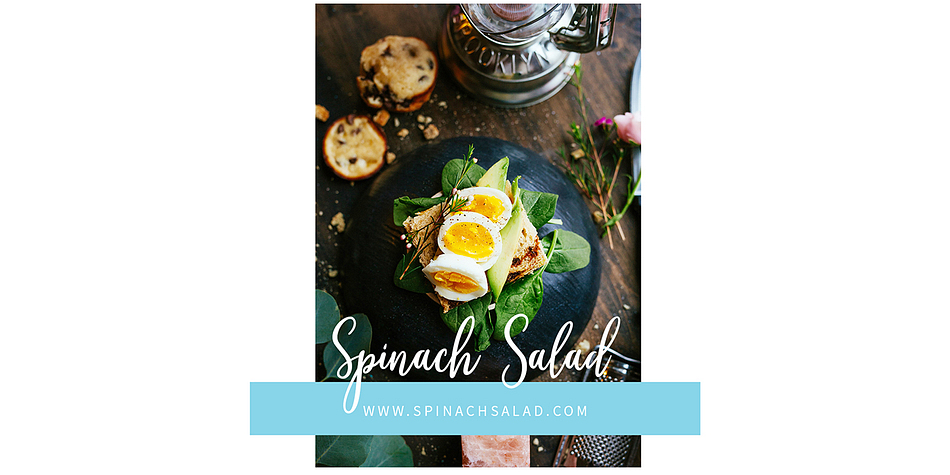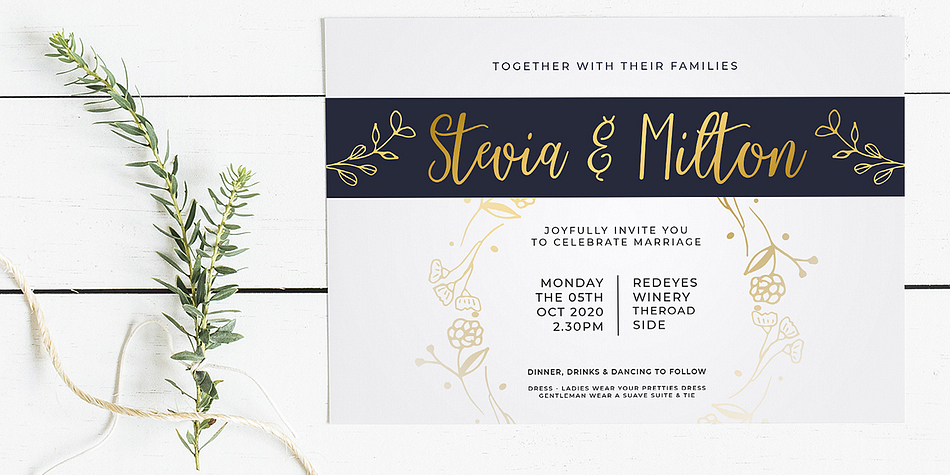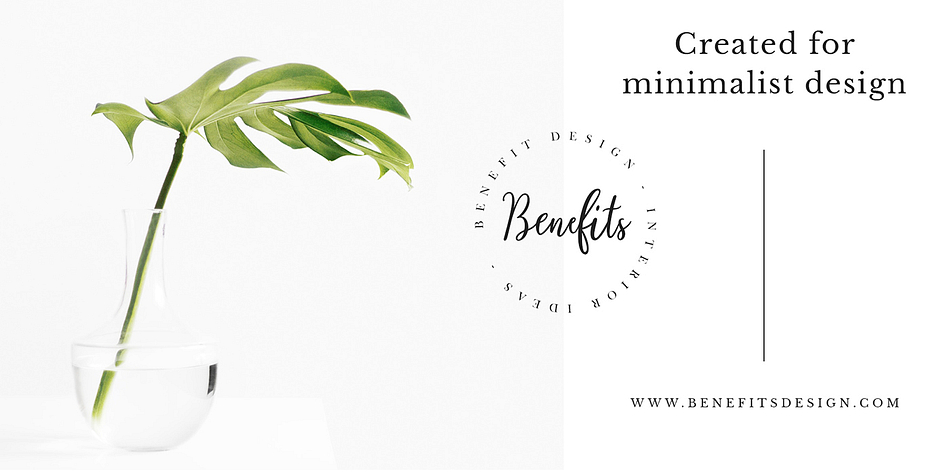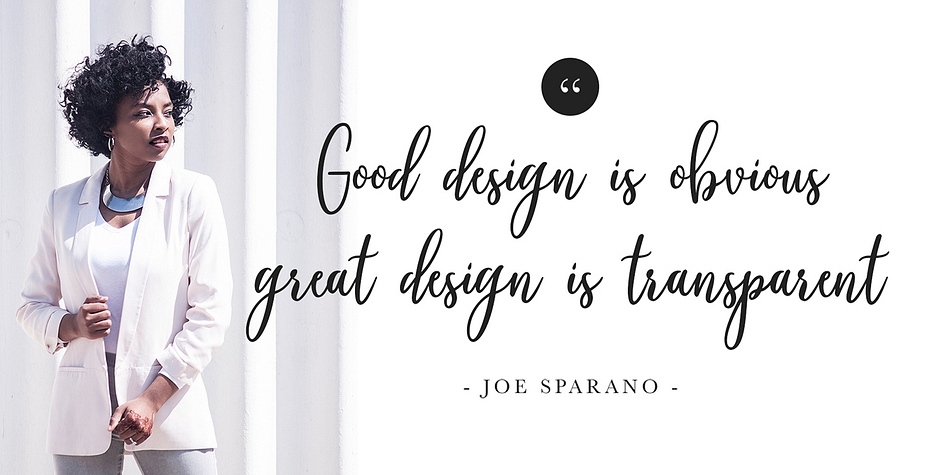
Shelby Script is a modern calligraphy and script font published by Genesislab.
Available Shelby new hand font letters very simple script type calligraphy script, which combines classic style with modern calligraphic style.